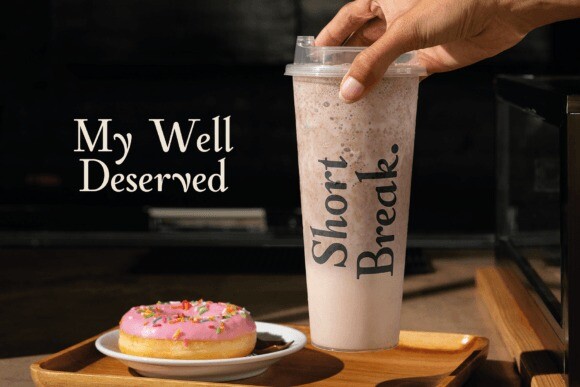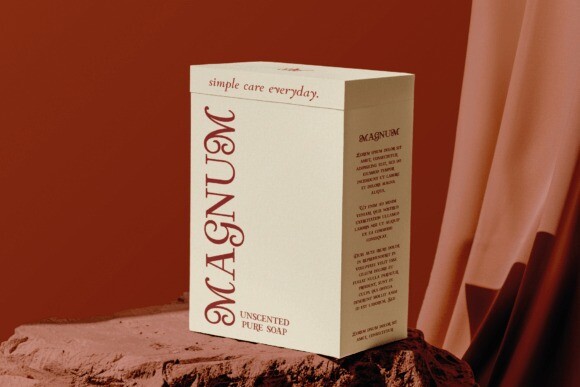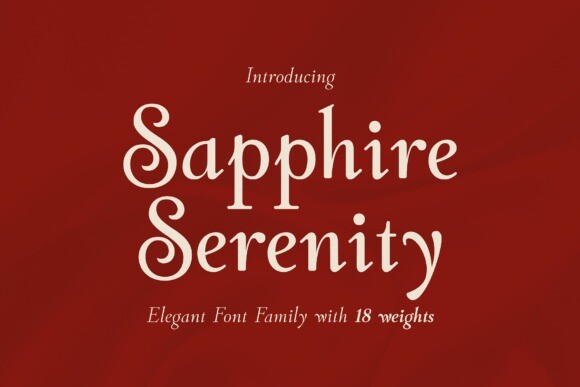
Sapphire Serenity Font Family
Sapphire Serenity Font Family – a timeless serif typeface that marries elegance with versatility, designed to elevate any project with refined sophistication. Crafted for graphic designers who demand both style and functionality, this typeface offers 18 meticulously designed weights to suit every creative vision, from light and delicate to bold and impactful.